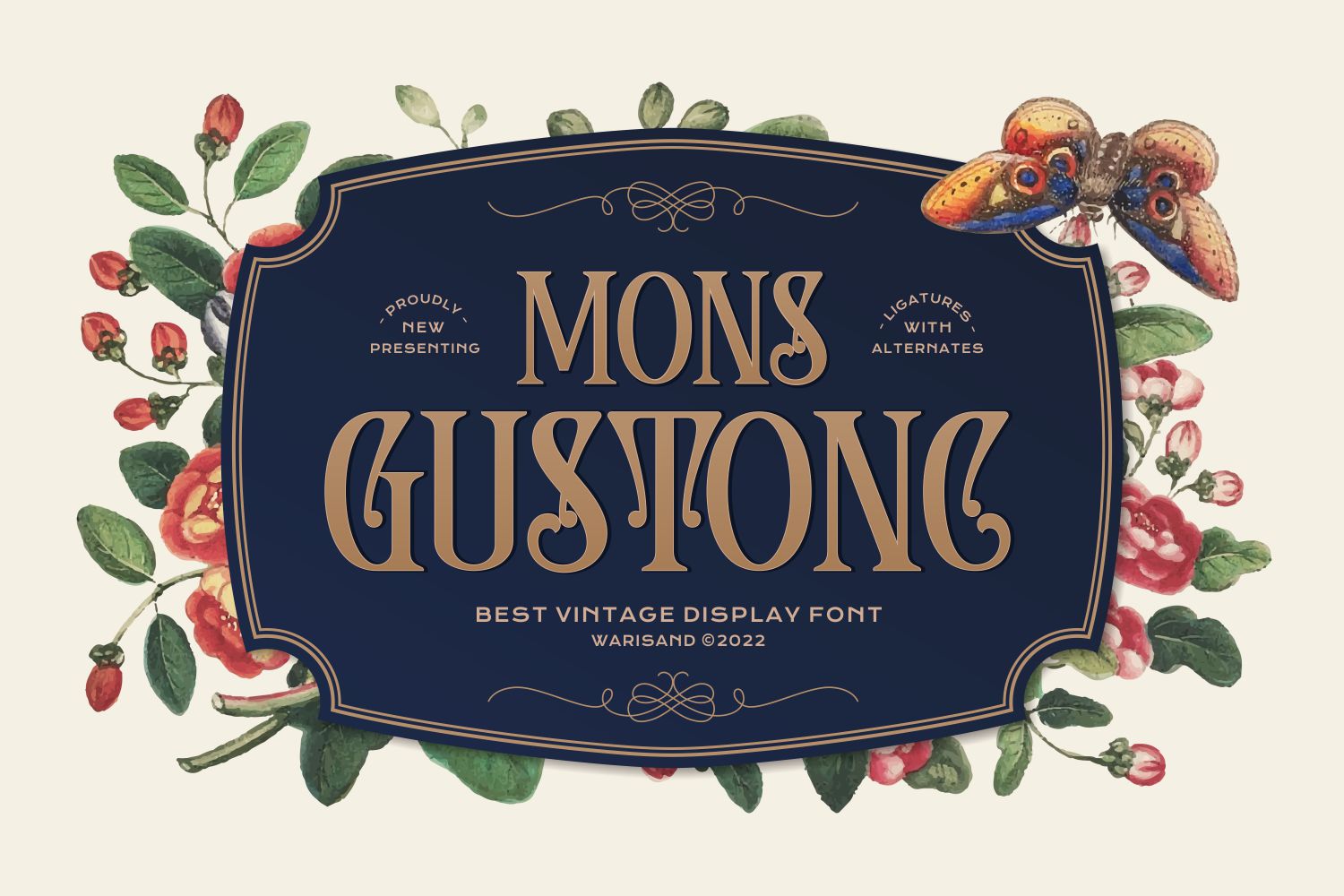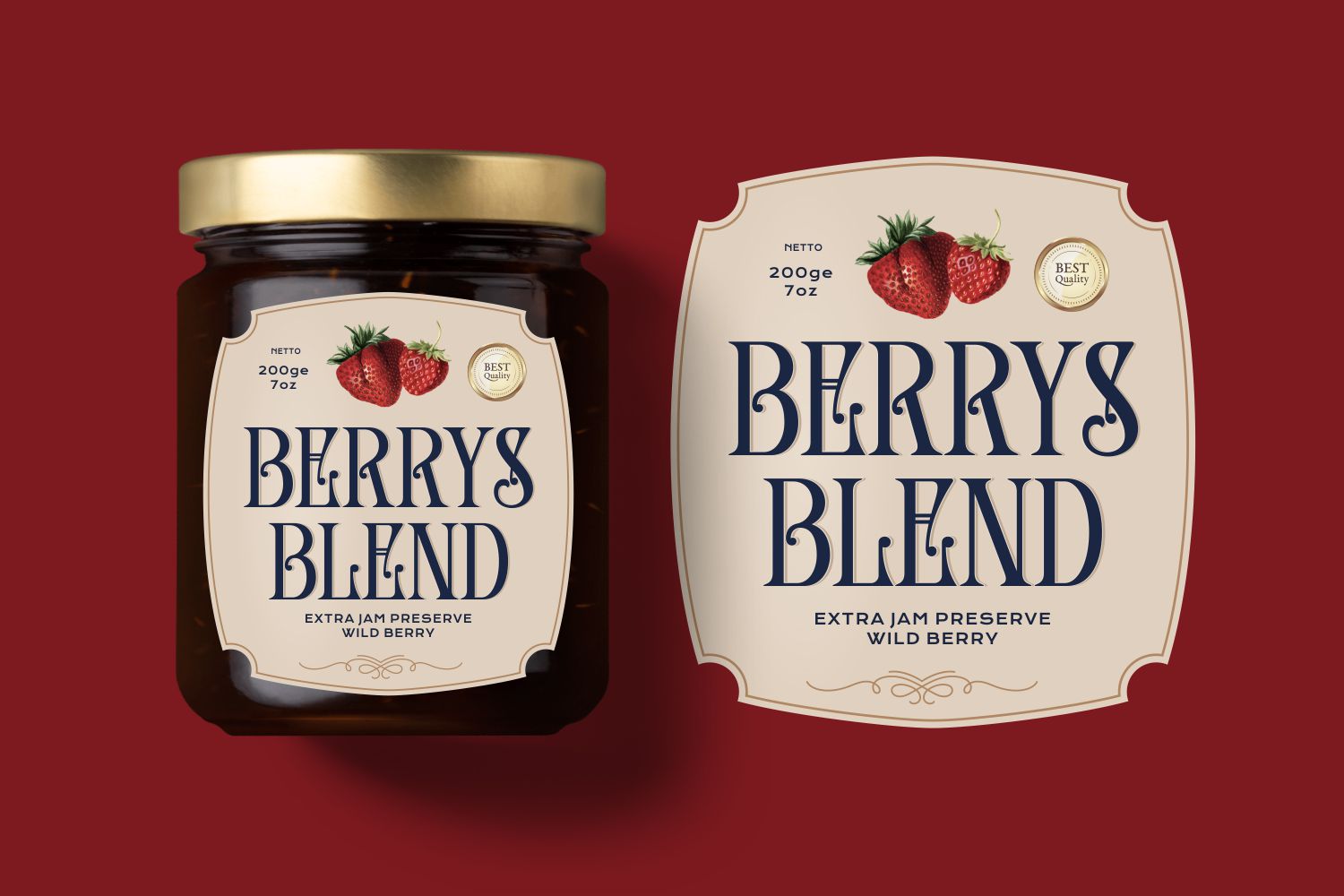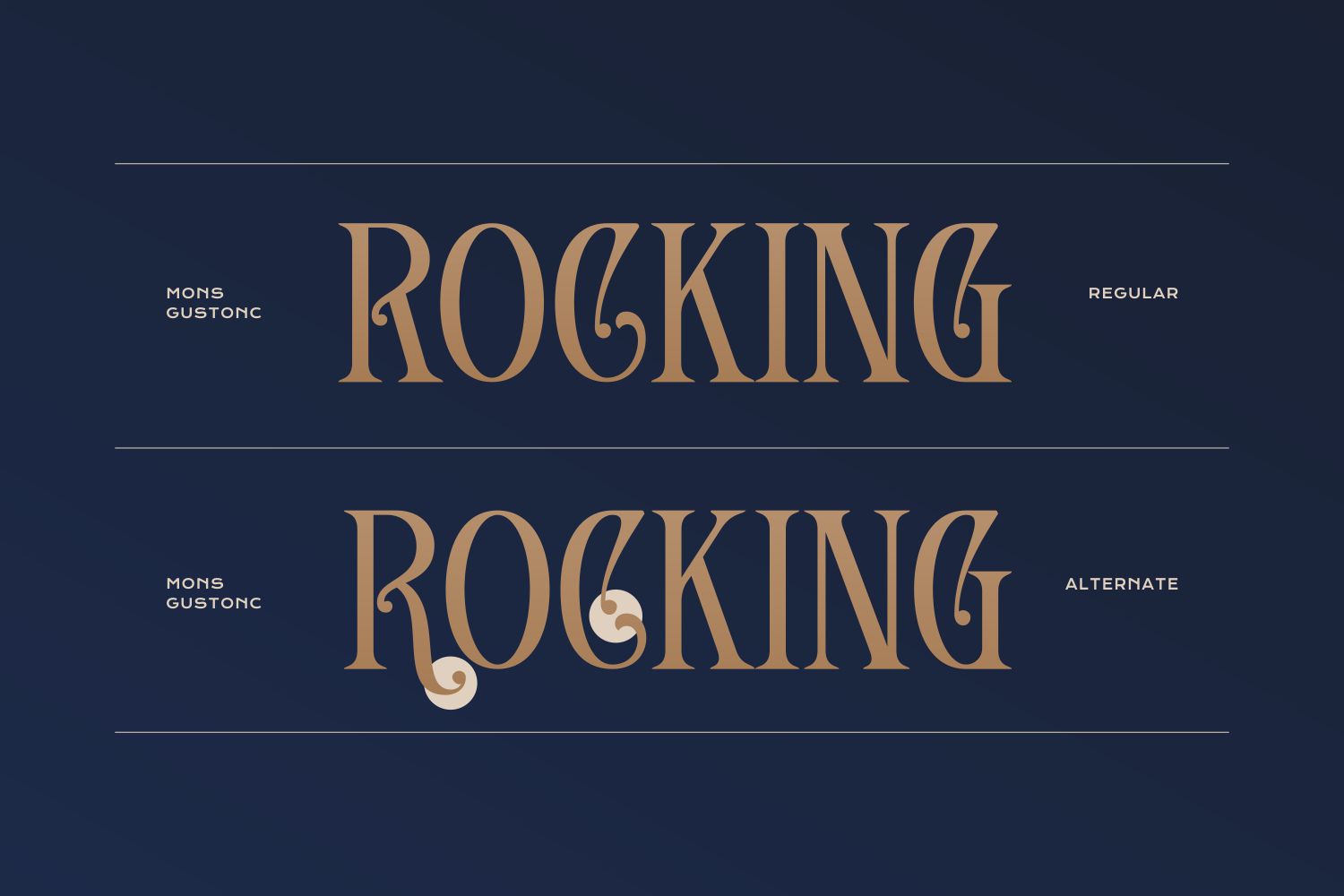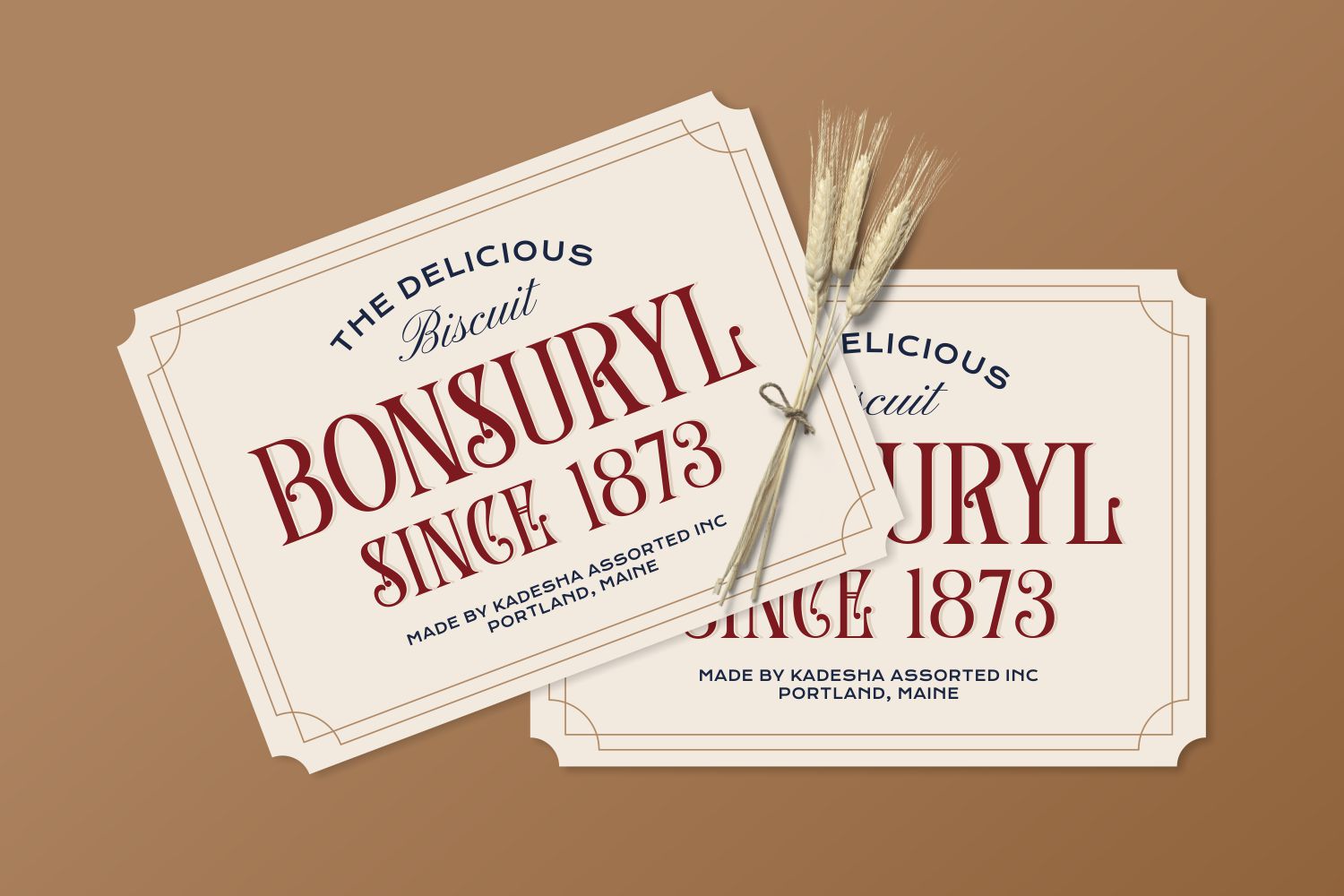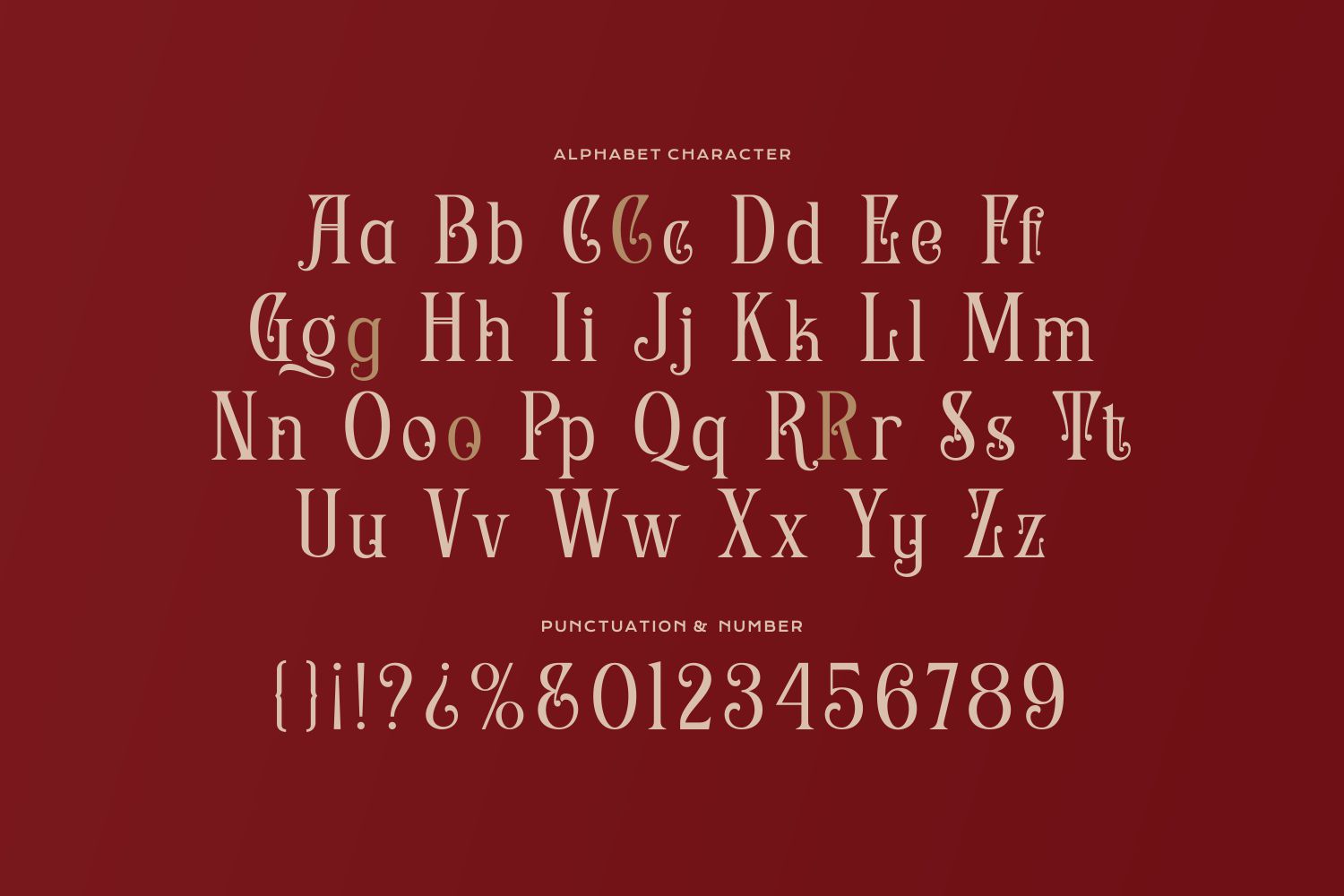
Mons Gustonc is a sophisticated vintage display font that blends ornamental flair with timeless serif structure. Inspired by classical label design and old packaging aesthetics, this typeface features elegant curves, high contrast strokes, and unique ligatures and alternates that enhance its character. It’s an ideal choice for branding, labels, product packaging, vintage advertisements, and editorial headlines that require a nostalgic yet refined typographic touch.
With a complete character set, including uppercase, lowercase, numbers, punctuation, ligatures, and stylistic alternates, Mons Gustonc offers versatility and creative freedom. Whether you’re designing for gourmet food, handmade products, or luxurious packaging, this font will add a distinctive and memorable voice to your design work.